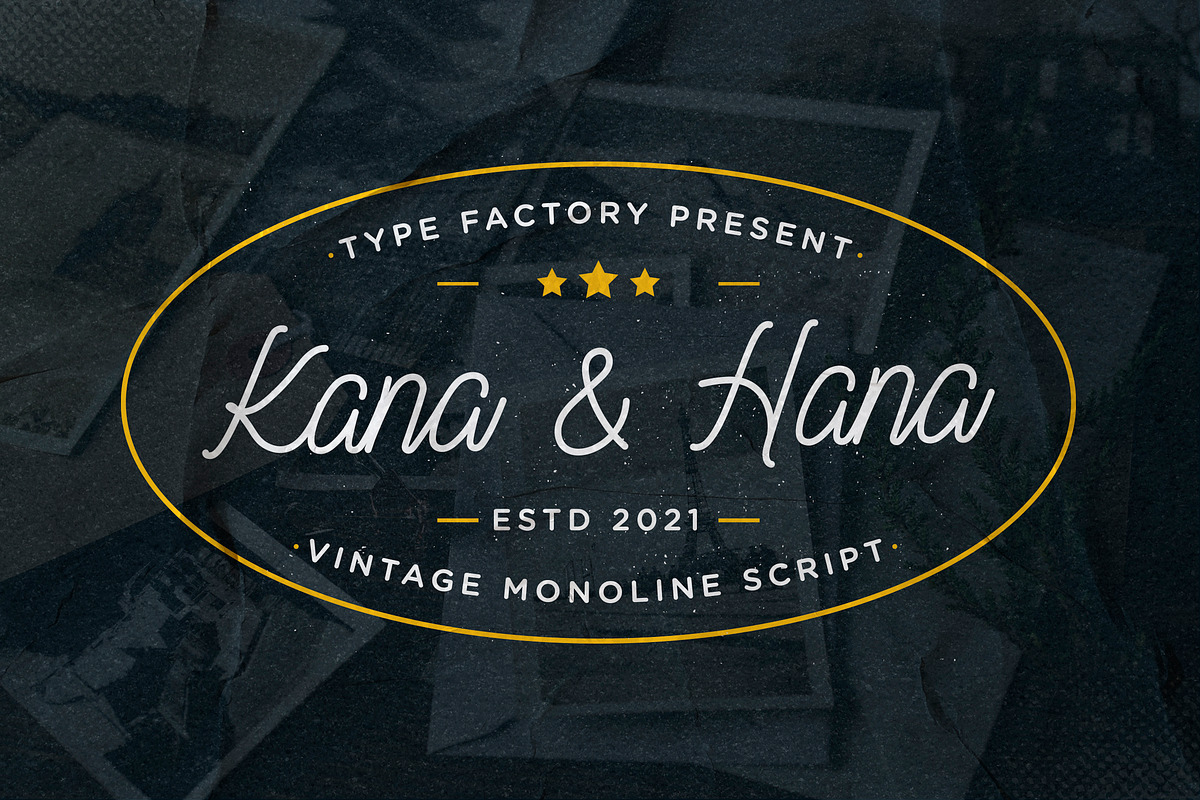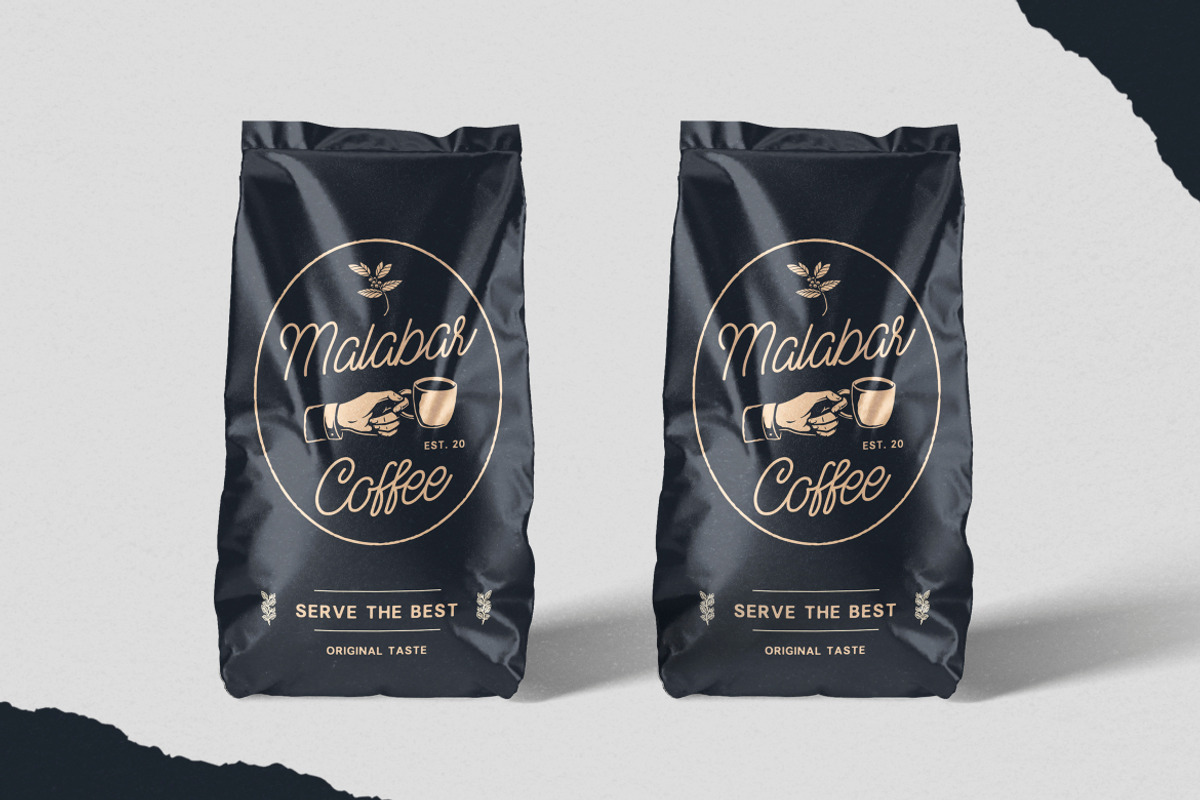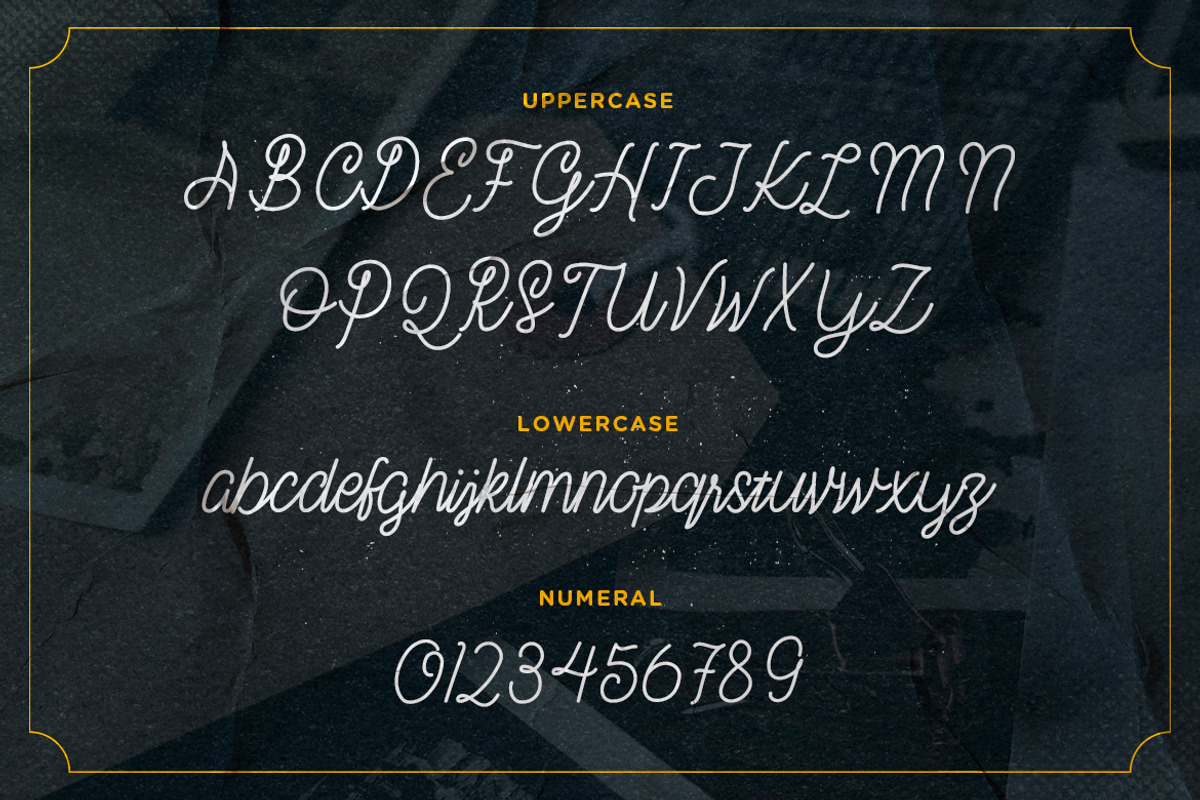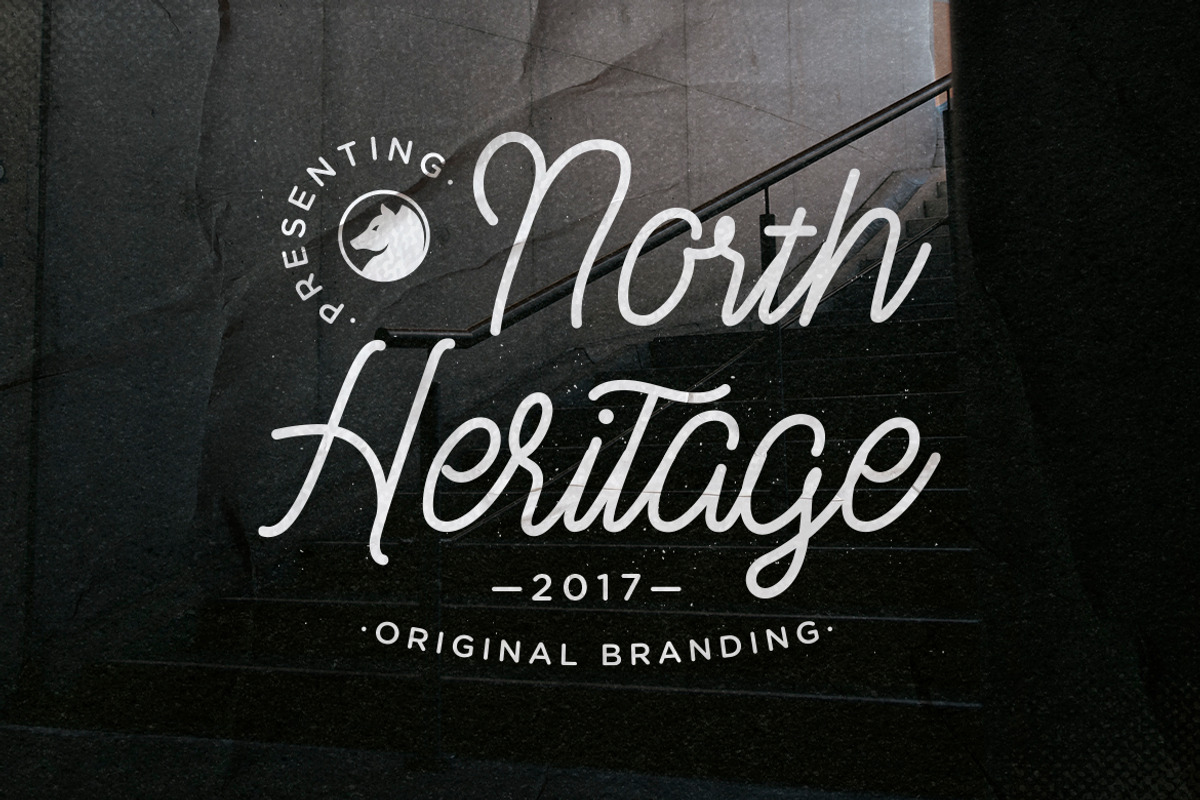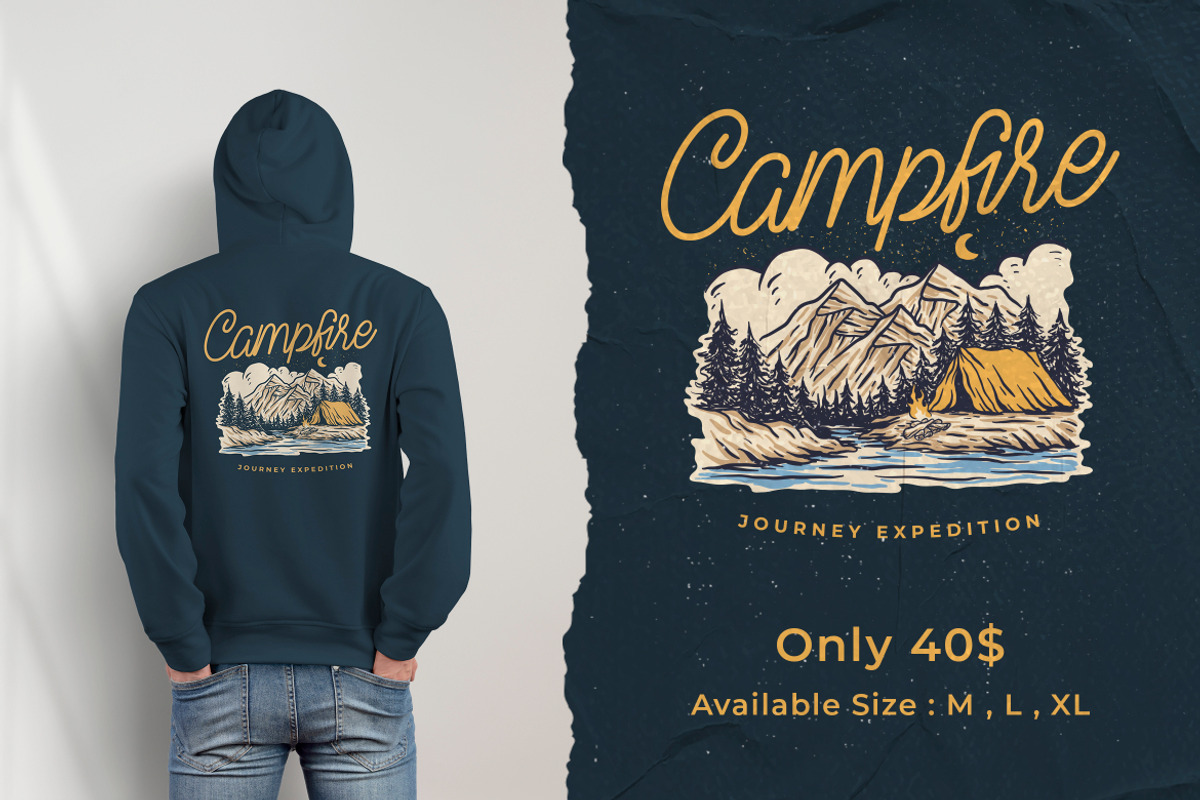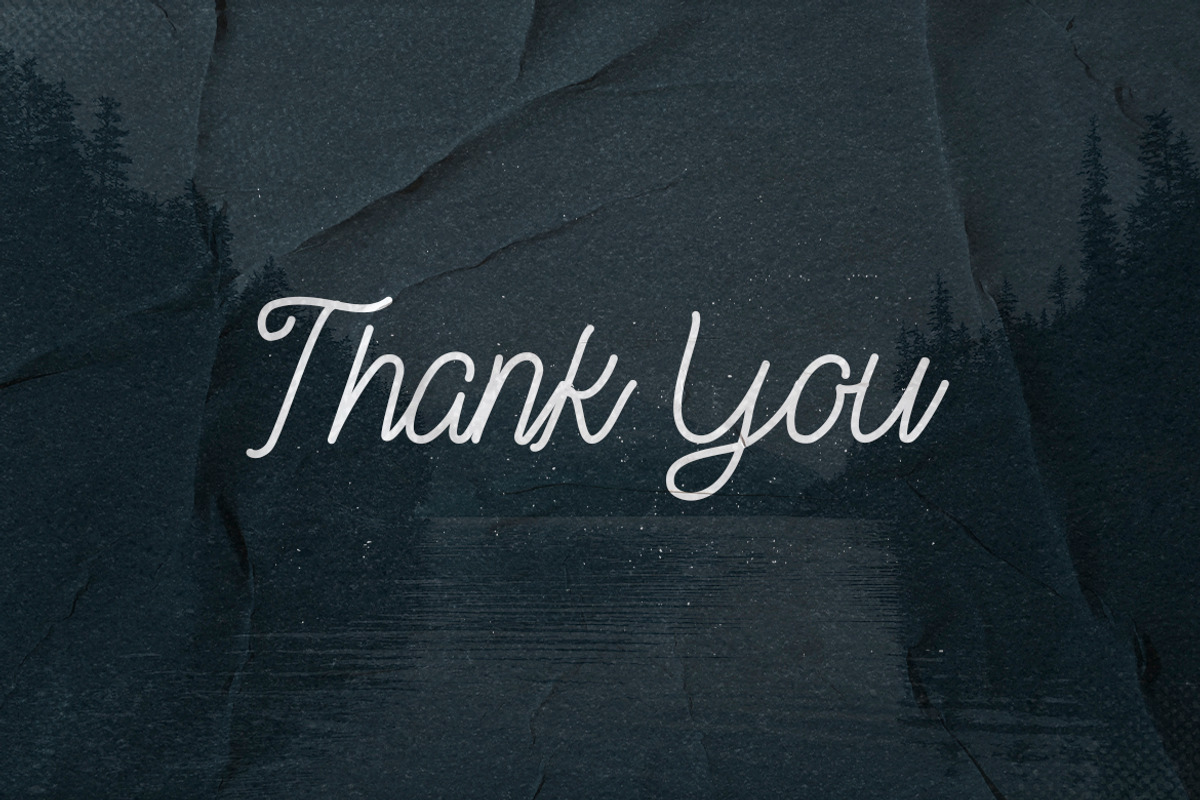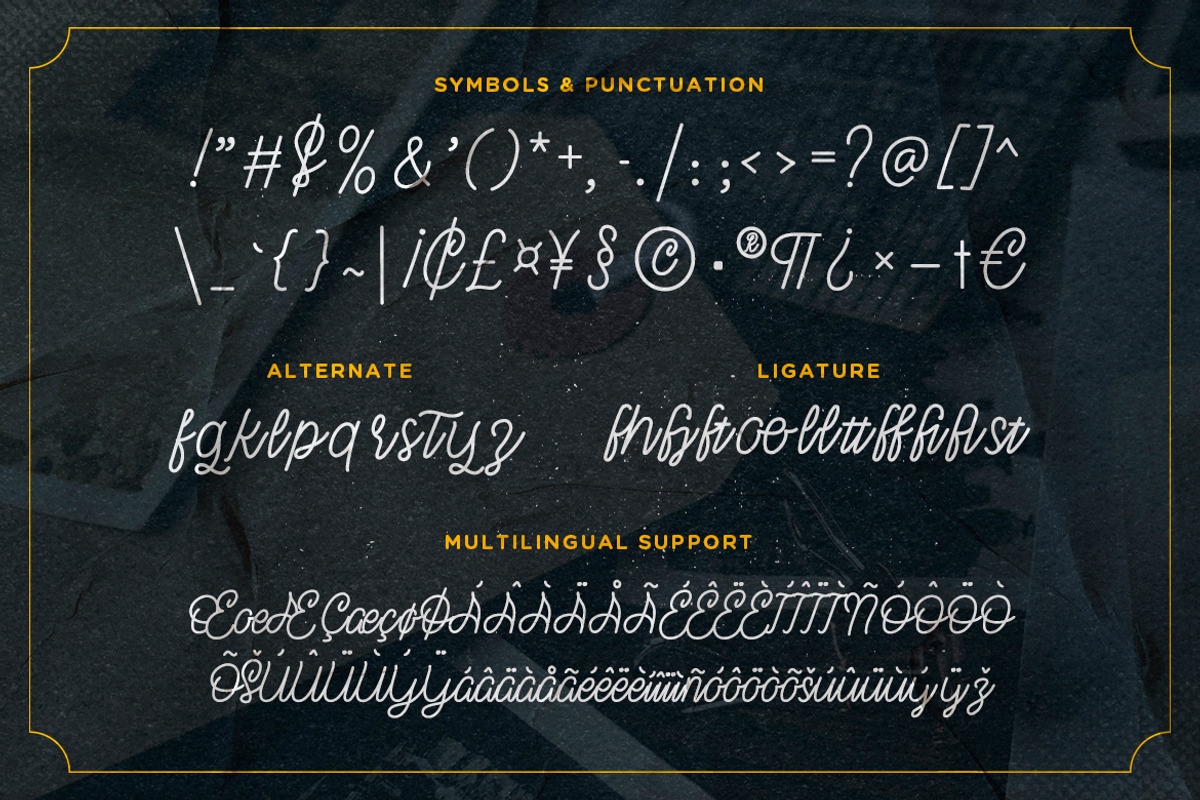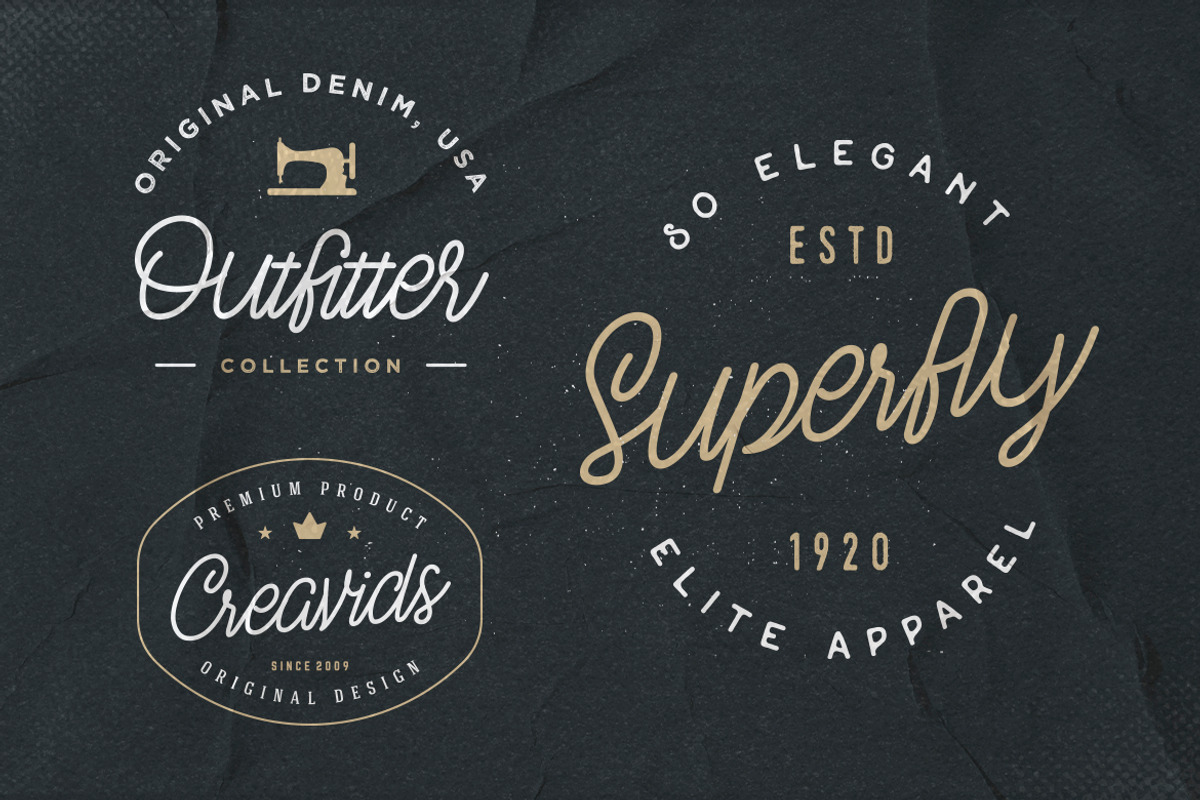
Kana & Hana - Monoline Script
Kana & Hana is a monoline script typeface with smooth characters and an vintage look. Kana & Hana is suitable for logos, signatures, taglines, handwritten quotes, product packaging, posters, and much more!